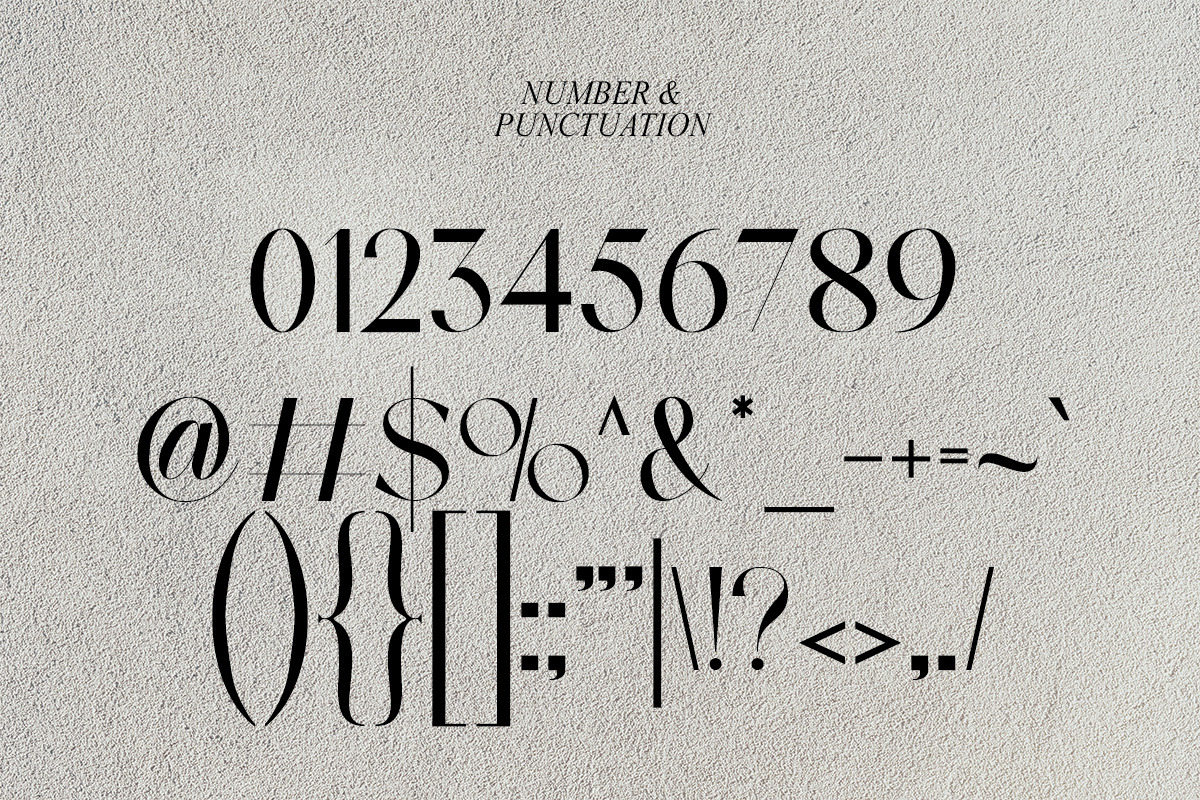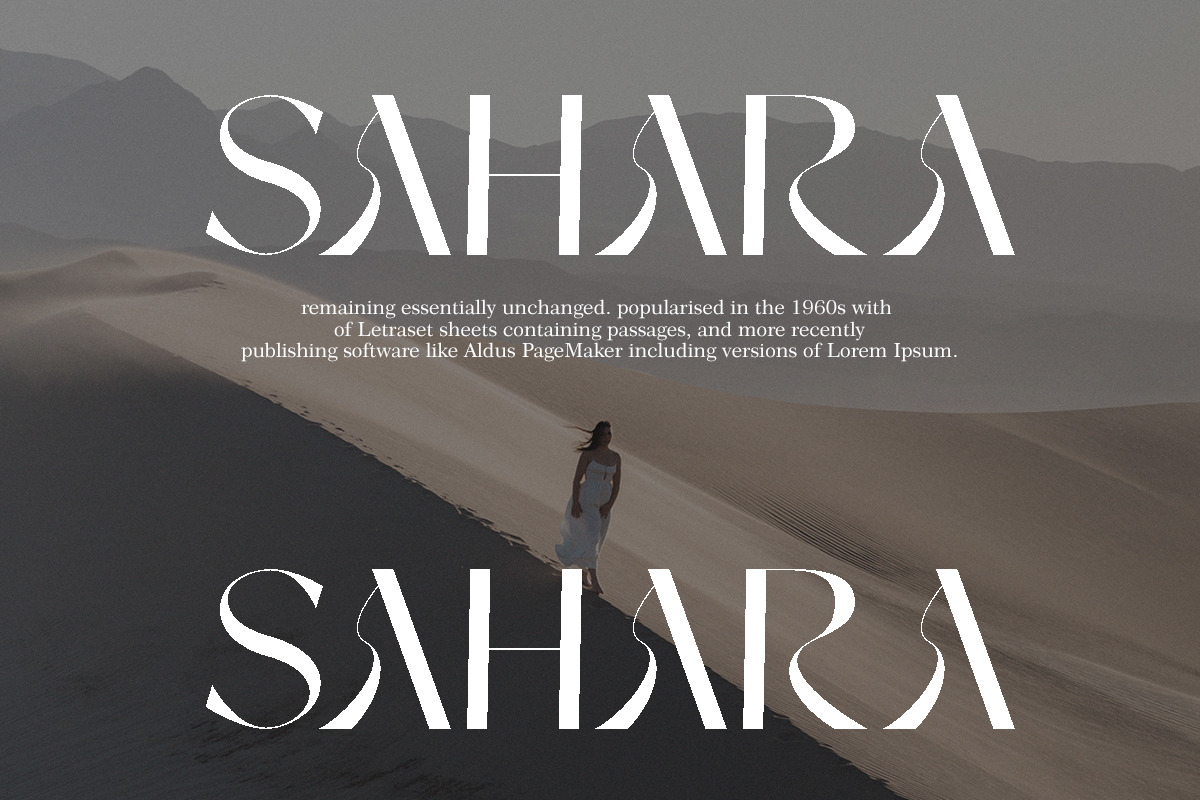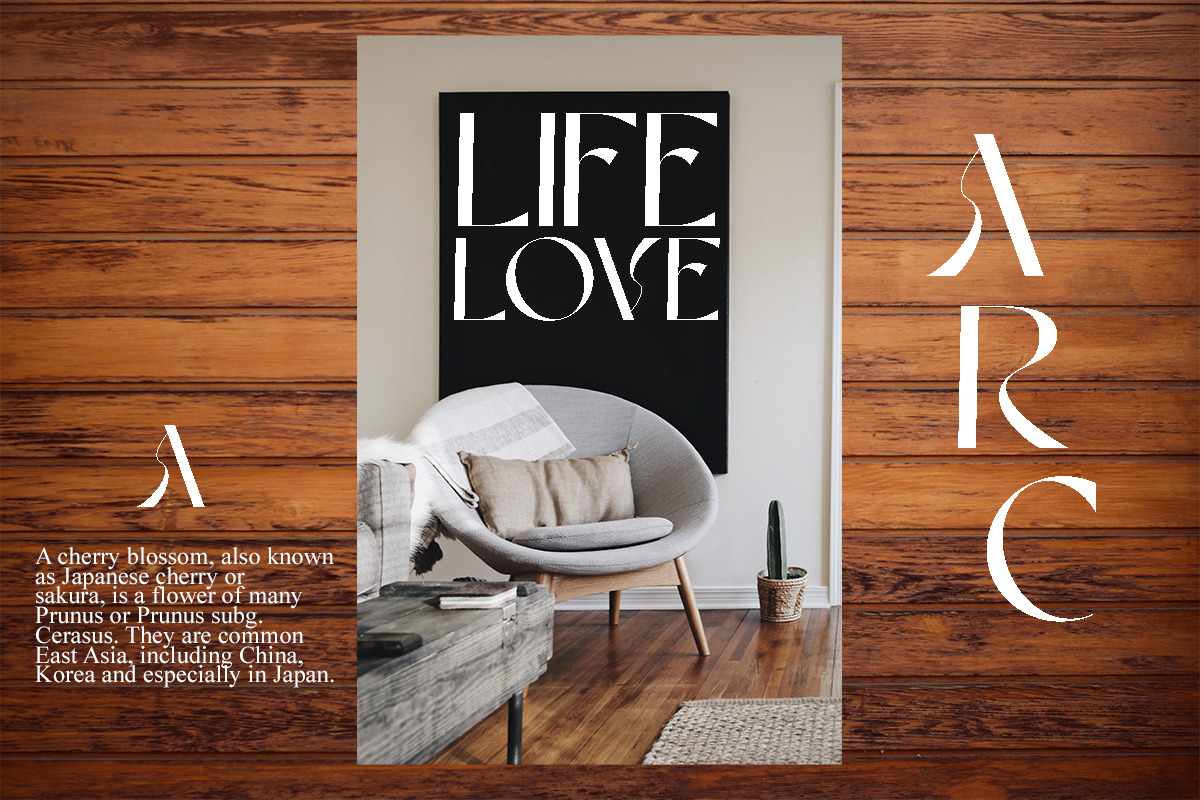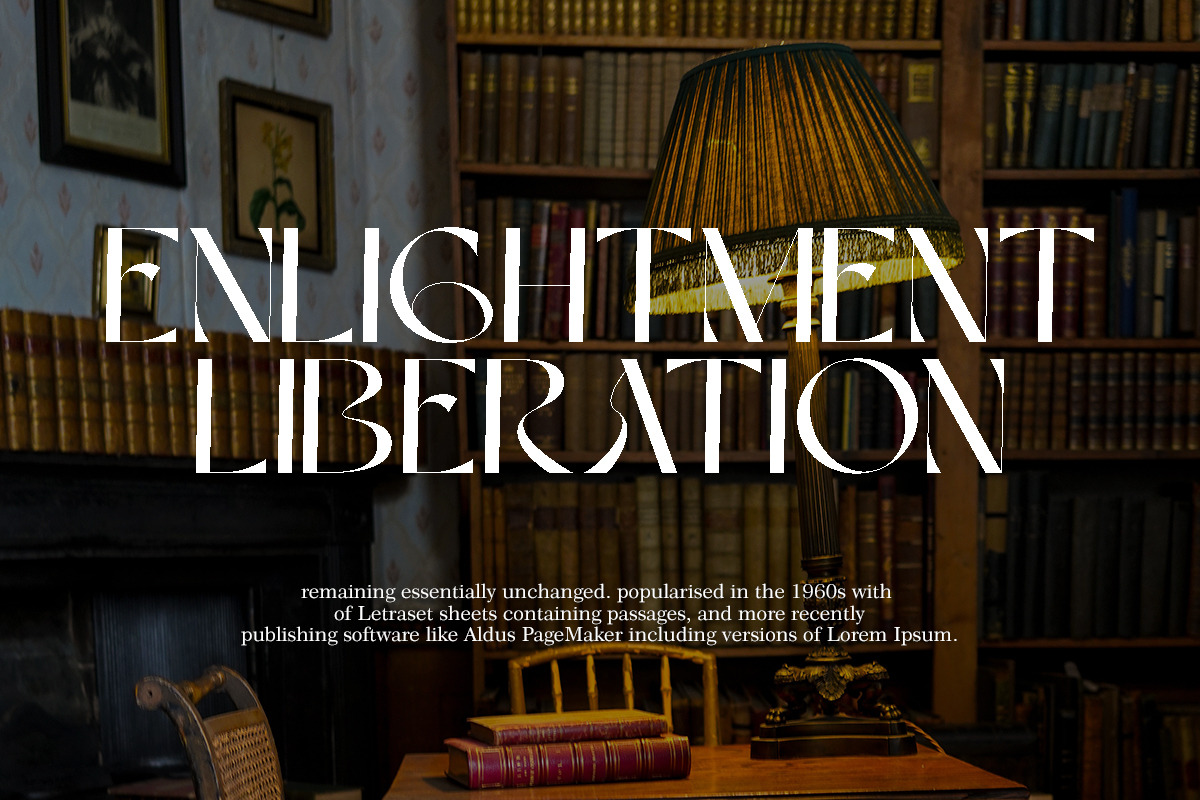
Artsy | Modern Stylish
Artsy fonts include uppercase letters, numerals, a large range of punctuation. Sans Serif font with modern stylish style. Created for poster, web design, branding, illustrations, badges, and some other works.